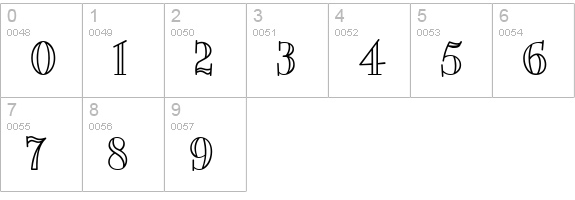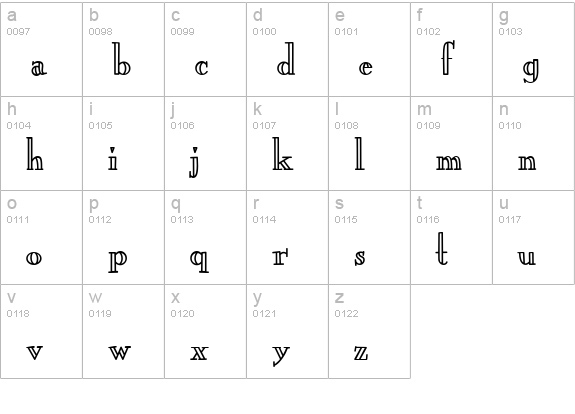
CK Stylish Font Details
Introducing CK Stylish Font, a sleek and modern typeface that exudes elegance and sophistication. With its clean lines and sharp angles, CK Stylish Font is perfect for a wide range of design projects, from branding and advertising to web design and print materials. This versatile font is sure to make a statement and elevate your designs to the next level. Whether you're creating a logo, poster, or website, CK Stylish Font will help you stand out from the crowd with its contemporary and stylish look. The best part? CK Stylish Font is available for free download at FontsMarket.com. So why wait? Add this trendy font to your collection today and start creating stunning designs that leave a lasting impression.